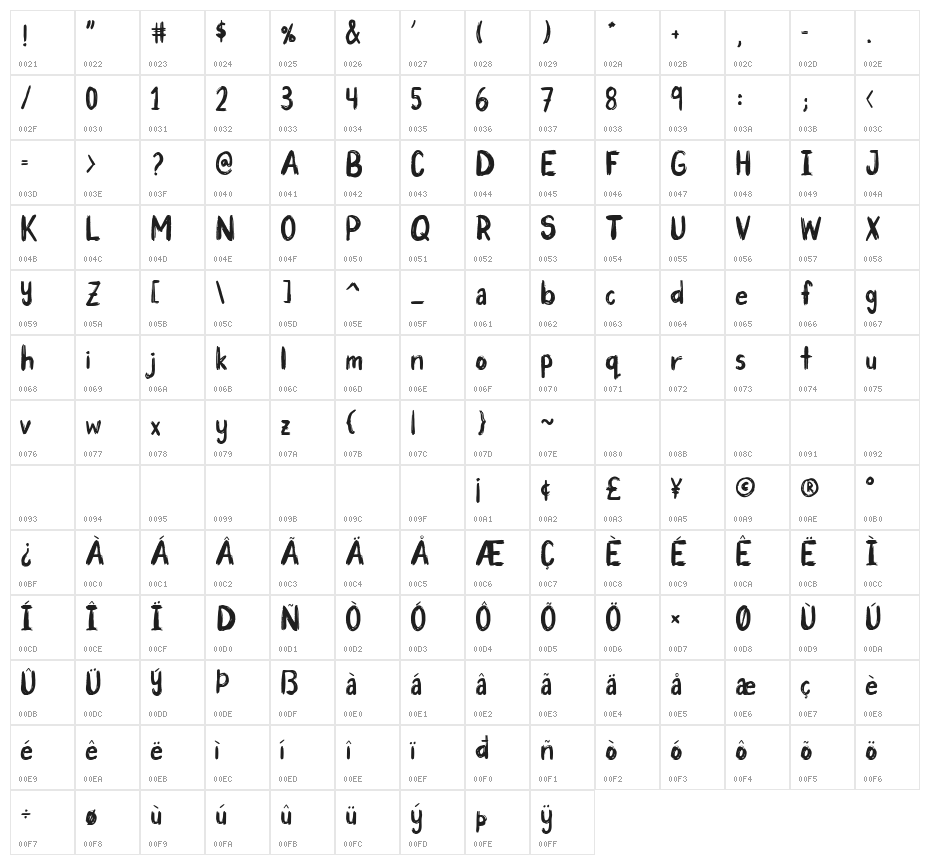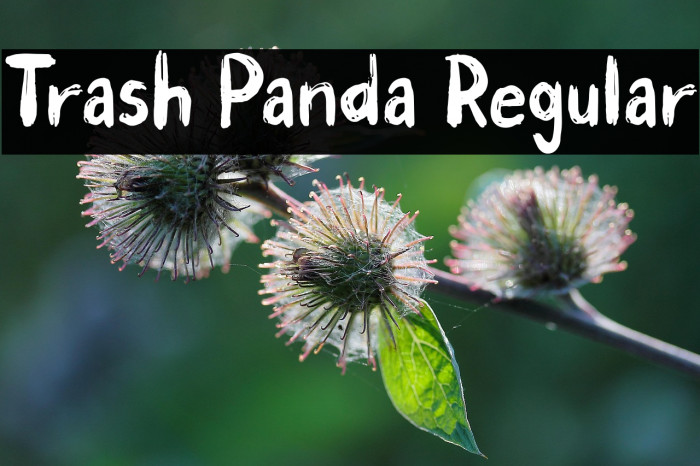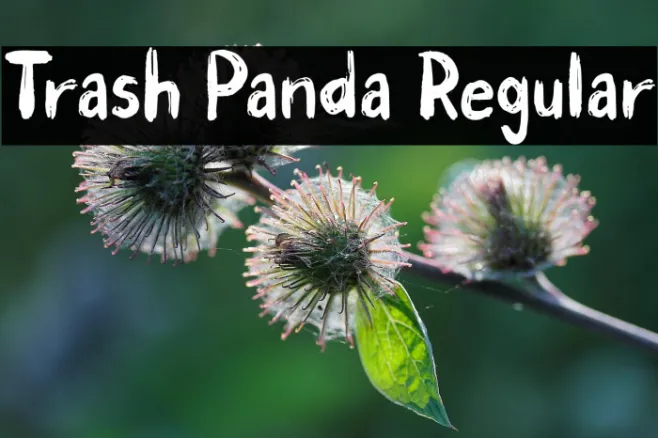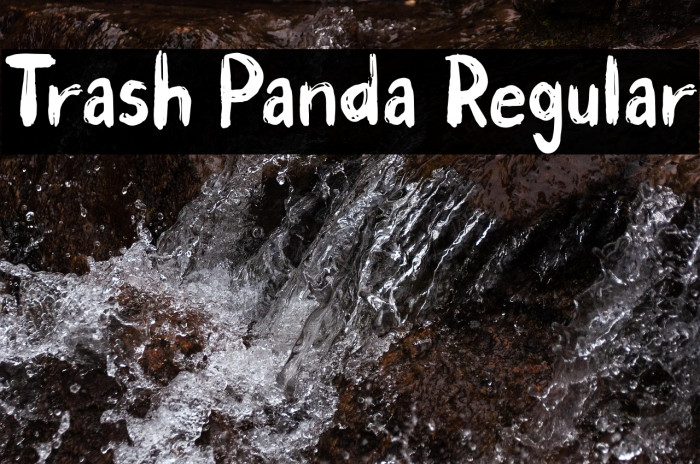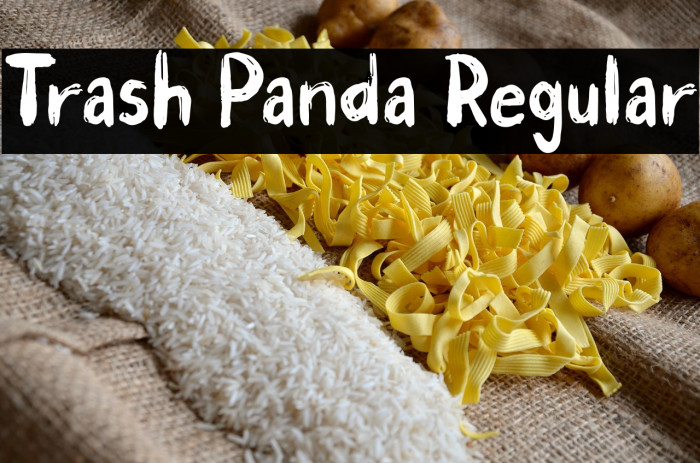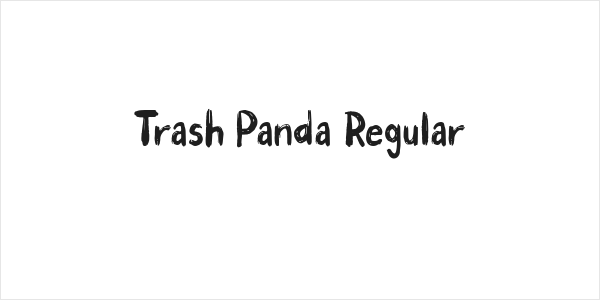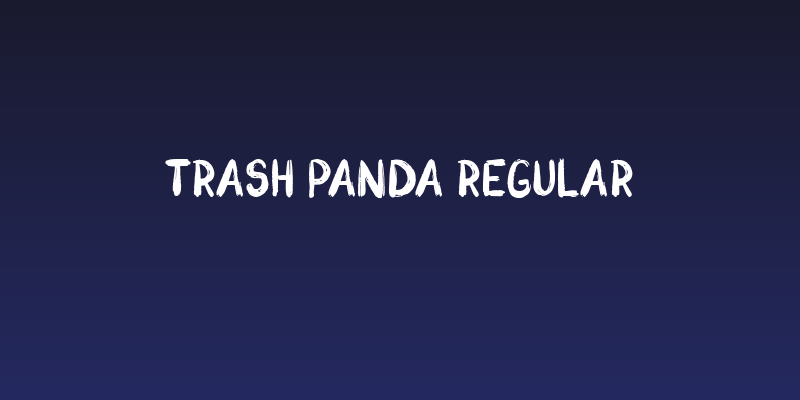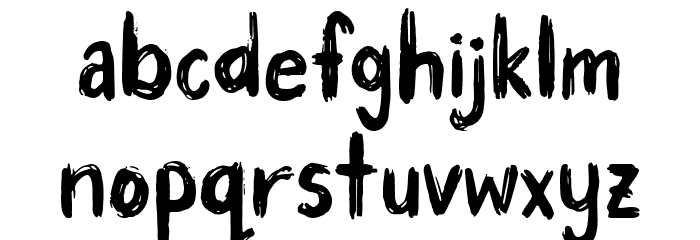
Trash Panda Regular Font
Trash Panda Regular Description
This font features a bold, brush-like appearance with a hand-drawn aesthetic. The strokes are uneven and textured, giving it a dynamic and energetic feel. Each character has a unique, organic shape, contributing to its informal and playful style. The uppercase and lowercase letters maintain a consistent style, with rounded edges and varying stroke widths. The numerals and special characters follow the same design principles, ensuring a cohesive look across all glyphs. This font is perfect for projects that require a personal touch or an artistic flair.